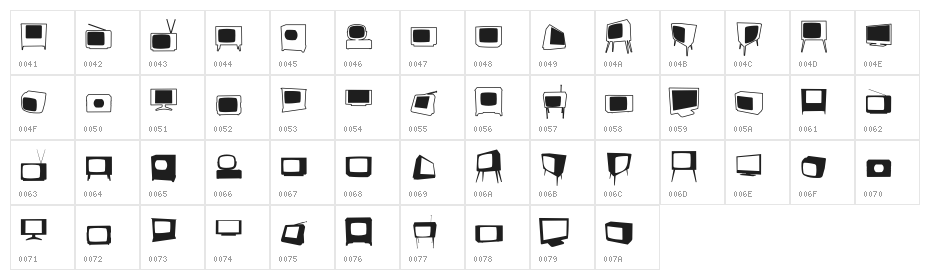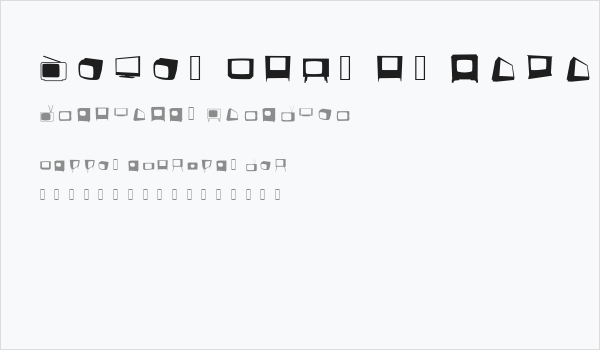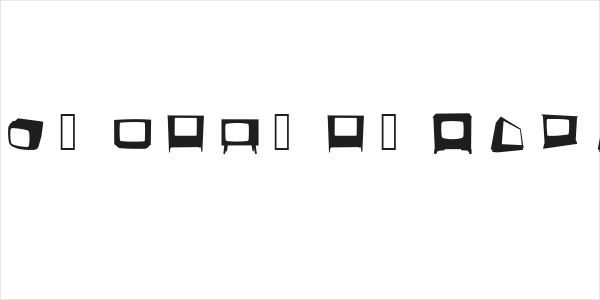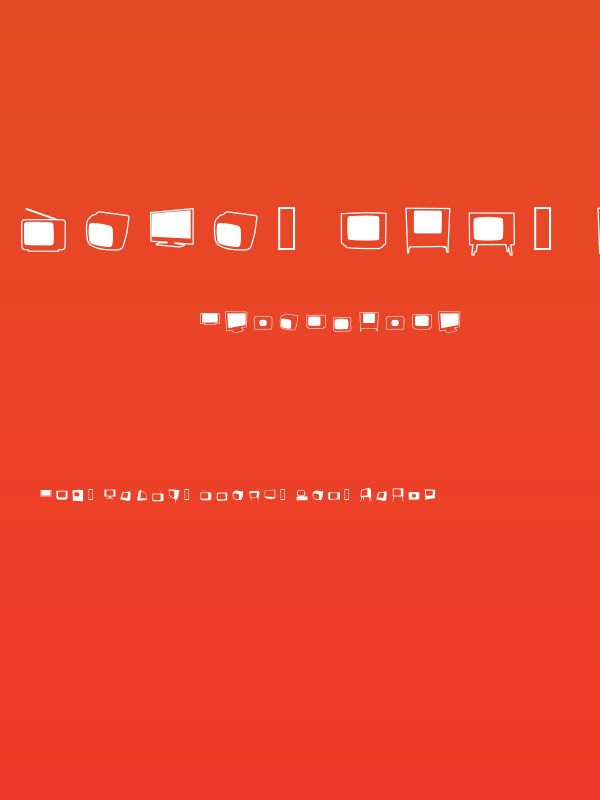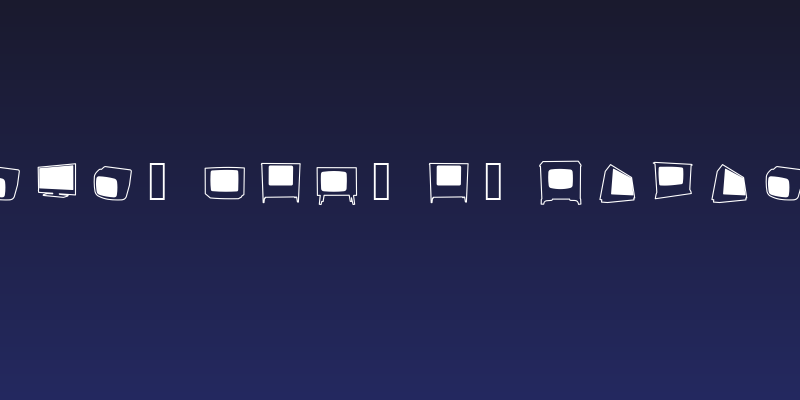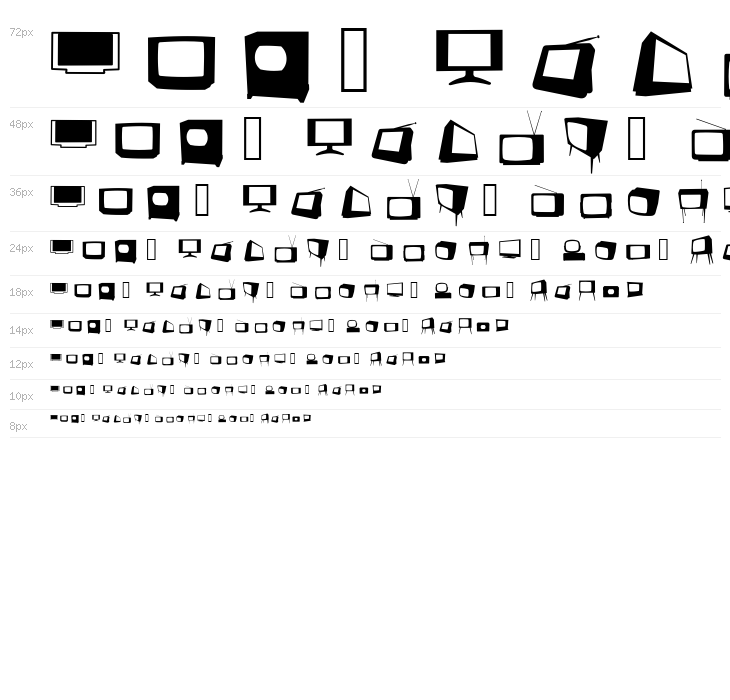
Bono had a vision Font
Bono had a vision Description
This is a highly creative and playful font that features a series of television set illustrations in place of traditional alphanumeric characters. Each character is represented by a unique TV design, ranging from retro to modern styles, with some incorporating antennas and stands. The font is visually engaging and offers a whimsical take on typography, making it ideal for projects that require a fun and unconventional approach. The characters are bold and distinct, ensuring readability while maintaining their artistic flair.
| Use Case | Logos, Posters, Creative Designs |
| Proposed Projects | Ideal for creative projects such as posters, children's books, themed events, or any design work that benefits from a quirky and artistic touch. |